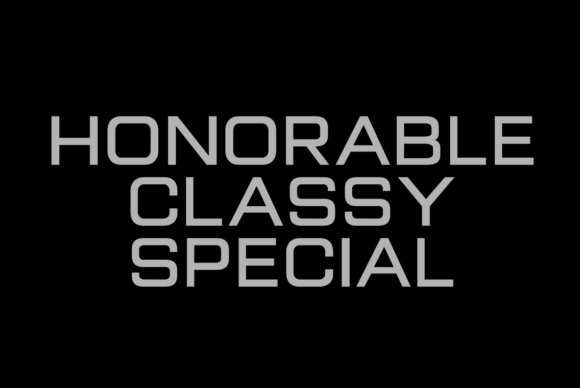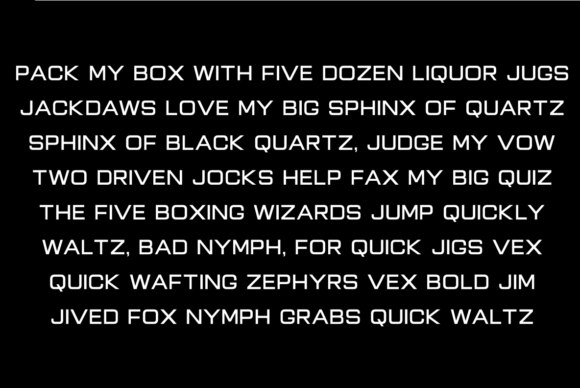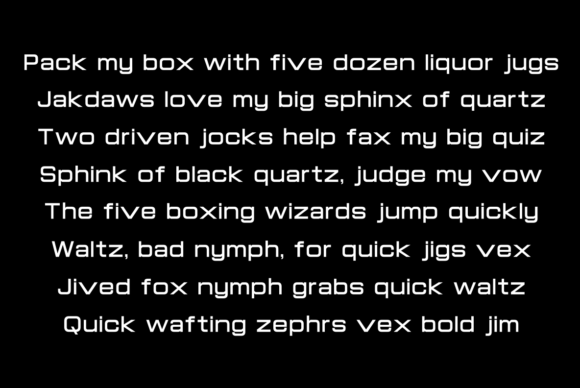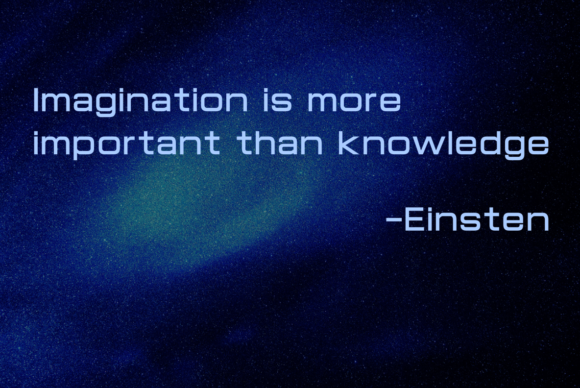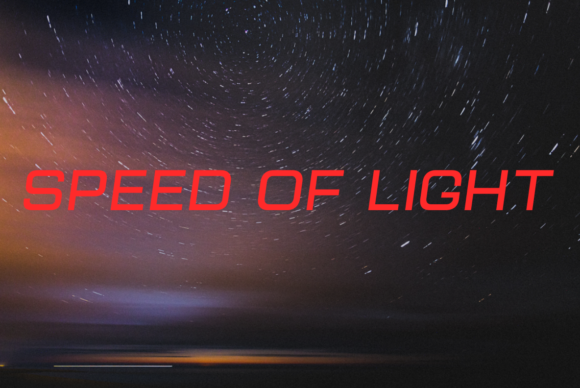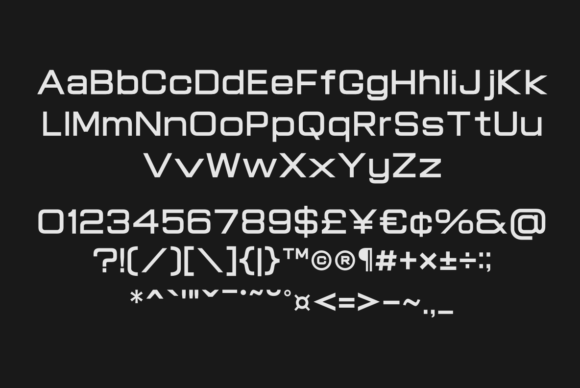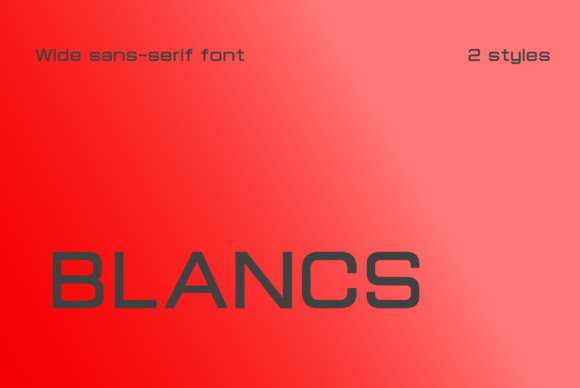
Discover the Elegance of Blancs Font: A Minimalist’s Dream
Are you on the hunt for a font that embodies simplicity, elegance, and versatility? Look no further than Blancs Font, a stunning sans serif font that has been making waves in the design community. In this article, we’ll dive into the world of Blancs Font, exploring its features, benefits, and uses, and why it’s become a go-to choice for designers and crafters alike.
What is Blancs Font?
Blancs Font is a minimal and neat sans serif font that exudes a sense of modernity and sophistication. Its clean lines, simple shapes, and uncluttered design make it an excellent choice for a wide range of projects, from branding and advertising to packaging and digital media. With its effortless elegance, Blancs Font can elevate your creative ideas and help them stand out in a crowded design landscape.
Key Features of Blancs Font
- Minimalist design: Blancs Font boasts a sleek and streamlined design that is both visually appealing and highly legible.
- Sans serif: The font’s sans serif style gives it a modern and fresh feel, perfect for designs that require a clean and contemporary look.
- Versatility: Blancs Font can be used in a variety of contexts, from headings and titles to body text and captions.
- Ease of use: The font is incredibly easy to read, making it perfect for designs that require a high level of legibility.
Benefits of Using Blancs Font
So, why should you choose Blancs Font for your next design project? Here are just a few benefits of using this incredible font:
- Enhance your brand’s visual identity: Blancs Font can help you create a cohesive and professional visual identity for your brand, setting you apart from the competition.
- Increase legibility: The font’s clear and simple design ensures that your message is communicated effectively, even at small font sizes.
- Boost creativity: With Blancs Font, you can experiment with a wide range of design possibilities, from bold and playful to elegant and sophisticated.
- Save time: The font’s versatility and ease of use mean you can create stunning designs quickly and efficiently.
Who Can Benefit from Blancs Font?
Blancs Font is an excellent choice for a wide range of designers and crafters, including:
- Graphic designers: Looking for a font that can help them create stunning visual identities, logos, and branding materials.
- Digital designers: Seeking a font that can enhance the user experience and create engaging digital products.
- Crafters and makers: Needing a font that can add a touch of elegance and sophistication to their handmade products.
- Marketing and advertising professionals: Looking for a font that can help them create eye-catching campaigns and advertisements.
How to Use Blancs Font